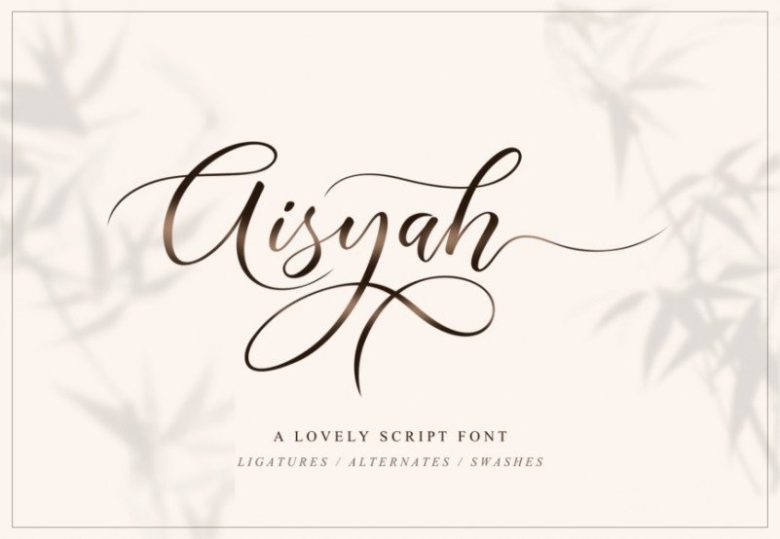
Aisyah Script Font
Hello font lover! Introducing Aisyah Font. This is an elegant font and has its own distinctive style, so it looks luxurious in every character! Aisyah Calligraphy Script is designed and shared by Ghuroba Studio. It’s a beautiful and elegant contemporary font with an incredibly delicate feel.
It will effortlessly elevate any design project with its timeless sophistication. Have you ever imagine how easy to have your own hand painted name or logo, put it everywhere; own shop logo, your insta feed or story or probably make it as your own signature/icon on the paper.